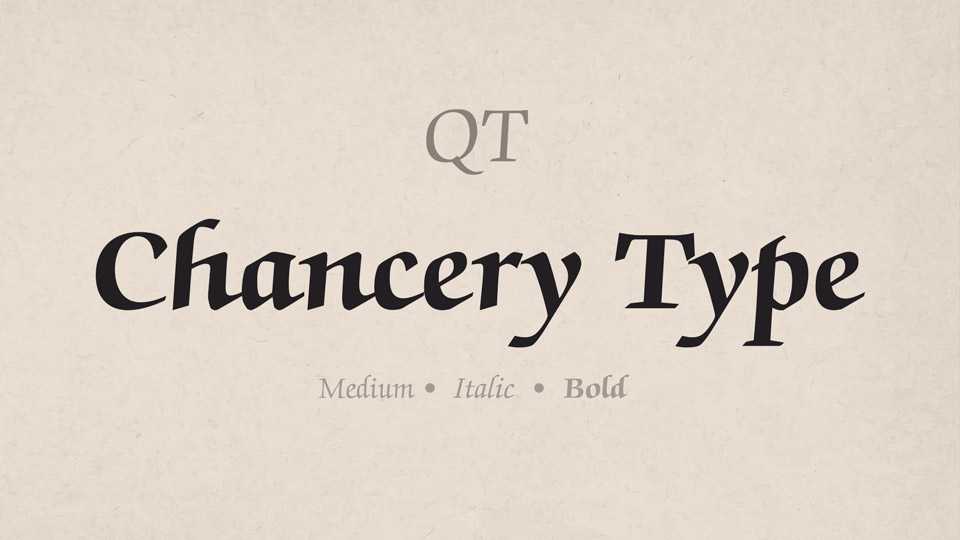
Download QT Chancery Type typeface, a contemporary script font family based on Italian chancery handwriting. Chancery Type is highly legible, making it useful for short texts as well as for adding flair to invitations, awards, diplomas, and greeting cards.